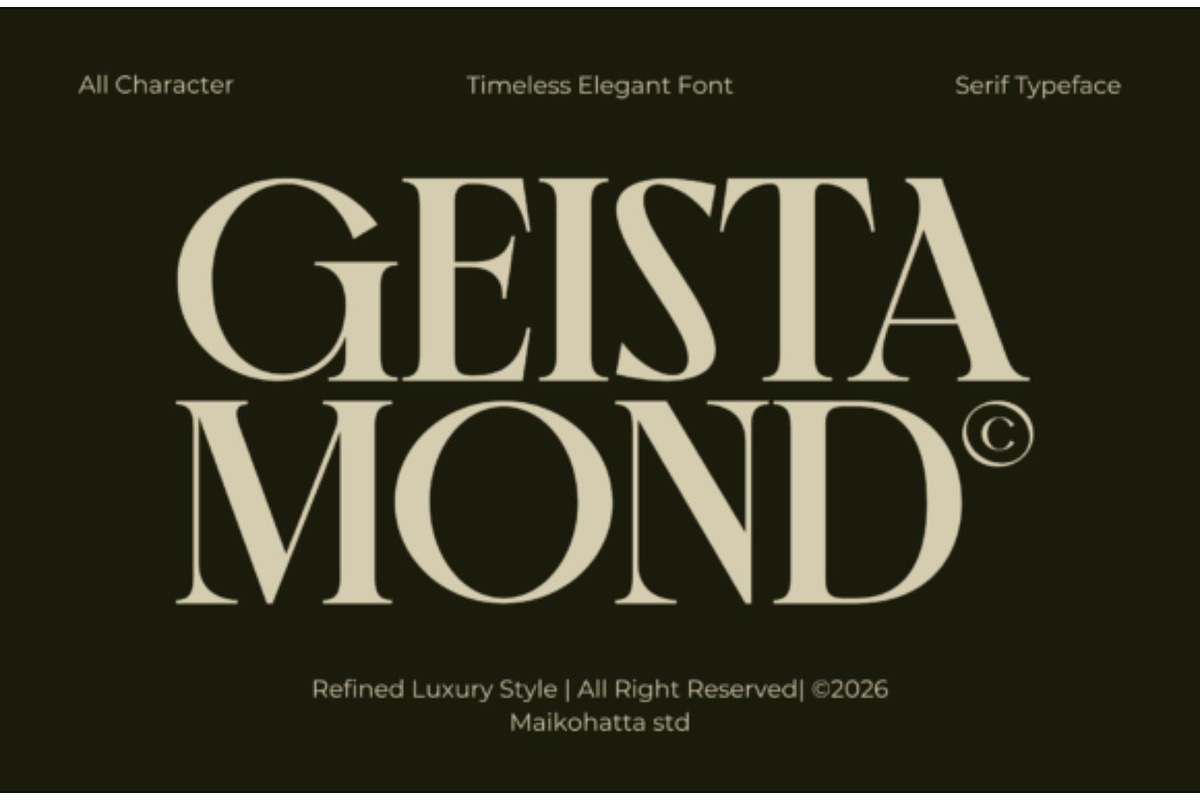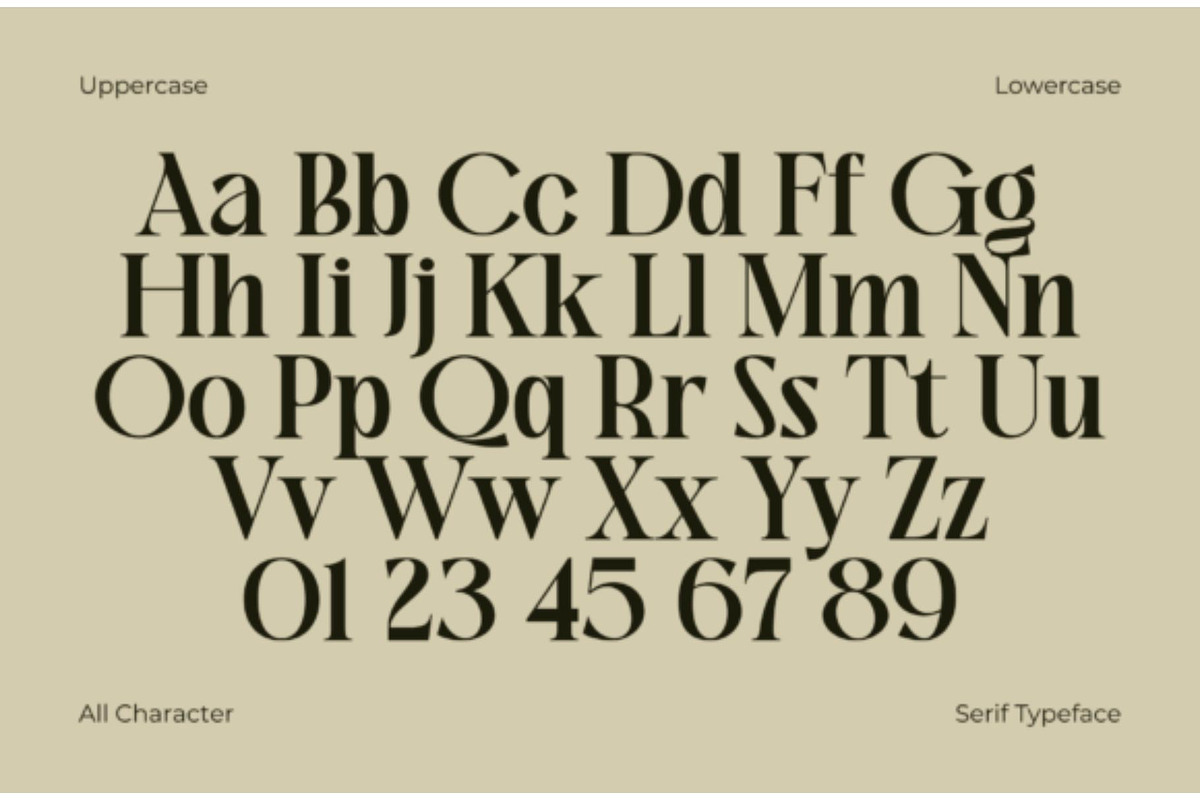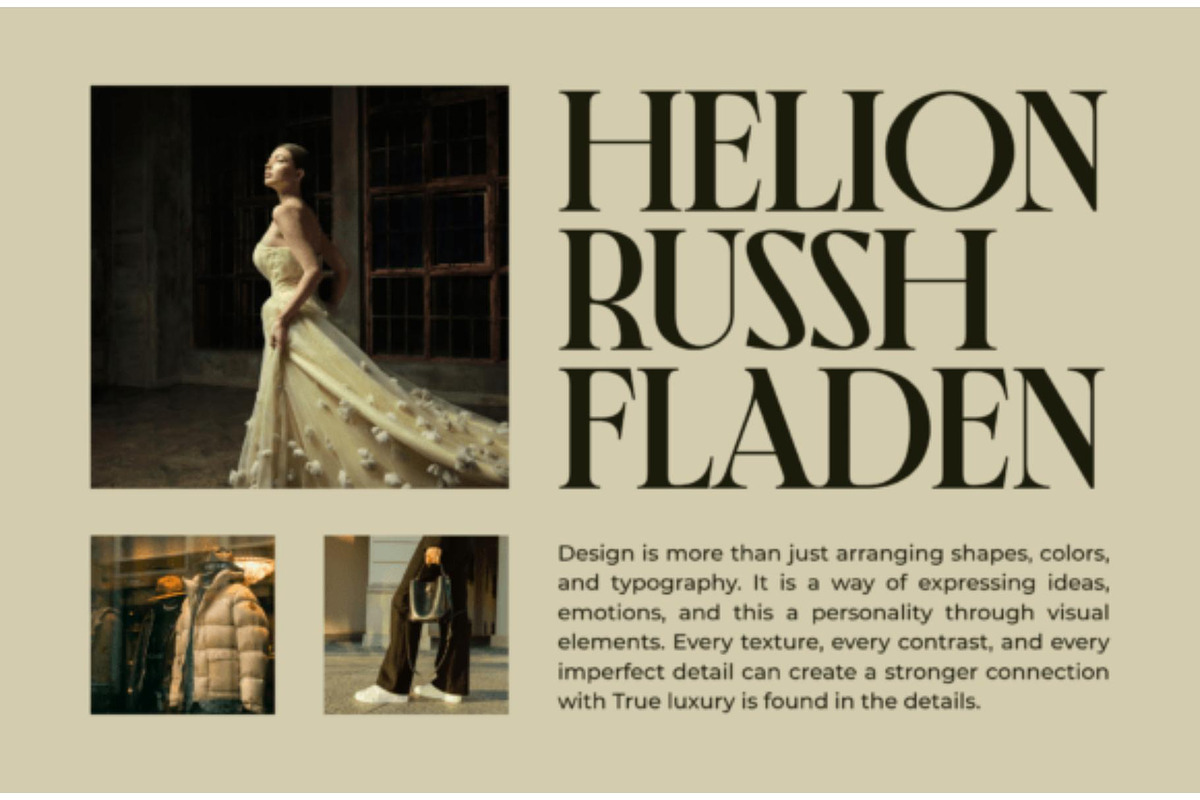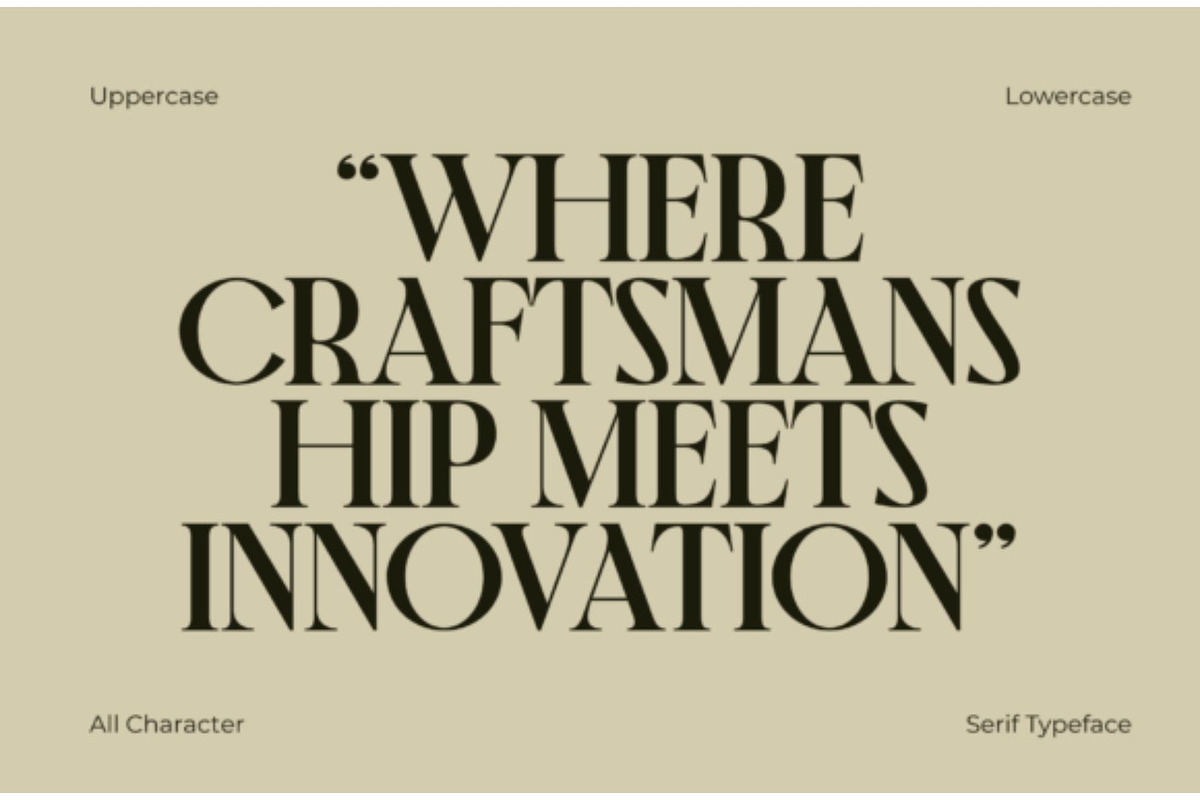
Geista Mond | Luxury Serif Font
Geista Mond is an elegant luxury serif font designed for modern branding, editorial layouts, and sophisticated design projects.
Its stylish letterforms, refined curves, and premium appearance make it perfect for high-end branding and professional creative work.
• Luxury Branding
• Fashion Logos
• Beauty Brands
• Wedding Invitations
• Editorial Design
• Magazine Headlines
• Packaging Design
• Business Branding
• Social Media Graphics
• Product Labels
• Uppercase & Lowercase Letters
• Numbers & Punctuation
• Multilingual Support
• Ligatures
• Alternates
Geista Mond combines timeless elegance with modern sophistication, making it ideal for luxury brands, fashion projects, and premium visual identities.
Luxury serif font with elegant letterforms and modern styling. Perfect for branding, logos, fashion projects, wedding invitations, editorial layouts, packaging, and premium business designs.